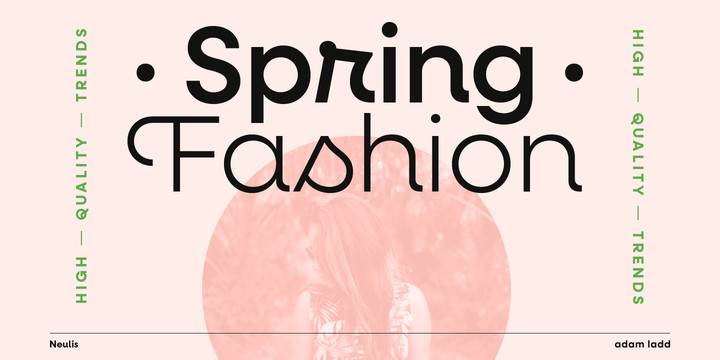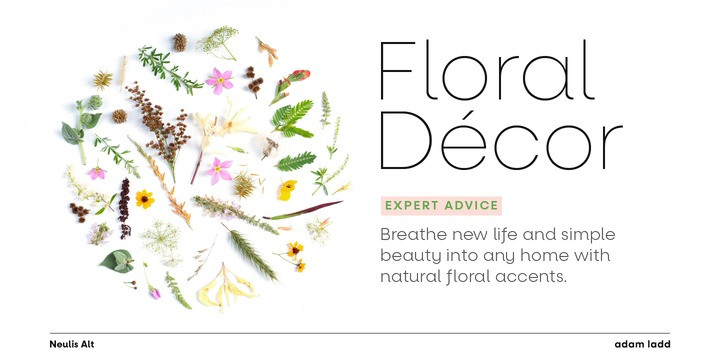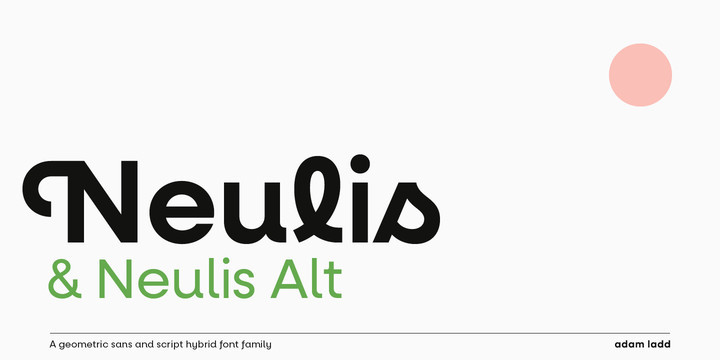
The Neulis design presents a unique display of characters that are inspired by script letterforms (like the l, k, r, s) along with script-style exit strokes (like the a, n, u) that blend into the overall geometric skeleton of the typeface. The Neulis Alt design gives a bit more of a restrained option by keeping with more classic sans serif letterforms.